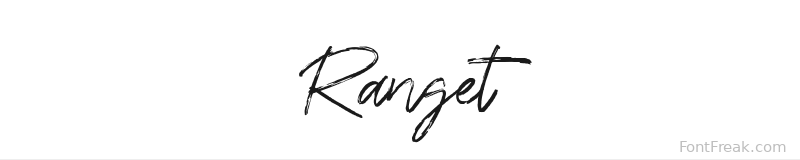
Ranget
About Ranget
Ranget is a captivating handwritten font created by Syaf Rizal, designed to bring a personal touch to various design projects. This display-style typeface features fluid, organic strokes that mimic the natural flow of handwriting, making it an excellent choice for those looking to convey warmth and authenticity. The font exhibits a medium stroke weight with subtle variations that add character and charm, while the generous spacing between characters enhances readability, ensuring that each letter stands out beautifully.
Ranget is particularly well-suited for a range of creative applications. It shines in wedding invitations, where its elegant and flowing lines can evoke feelings of romance and joy. Additionally, it is a fantastic option for crafting eye-catching movie posters, allowing titles to convey personality and intrigue. Restaurant menus can also benefit from the font's stylish appearance, helping to create a welcoming atmosphere that invites diners to explore the offerings. Furthermore, content creators can use Ranget to add a distinctive flair to social media graphics and branding materials, appealing to audiences seeking a more personalized touch.
The target audience for Ranget includes graphic designers, small business owners, and content creators who are looking to elevate their projects with a unique typeface that stands out. The font's versatility makes it a valuable addition to any designer's toolkit, allowing for endless possibilities in creative expression.
What truly sets the Ranget font apart is its ability to blend sophistication with a casual, approachable style. This balance makes it a standout choice for various design needs, ensuring that any project utilizing Ranget will resonate with its intended audience. For those interested, the Ranget font free download is a wonderful opportunity to enhance your design repertoire.